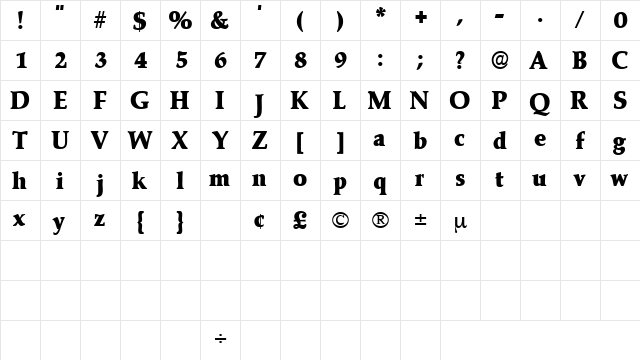
KatzenDisplaySSK Regular
Design Context for KatzenDisplaySSK Typeface
KatzenDisplaySSK is built around its visual character rather than neutral utility — its distinctive forms are designed to make an impression at display sizes.
Font Pairing: Pair with a clean neutral sans-serif for body copy to let KatzenDisplaySSK's character lead without overwhelming the composition.
Pro Tip: Treat KatzenDisplaySSK as the centrepiece of your typographic hierarchy. One strong heading set in a decorative face can carry an entire layout.